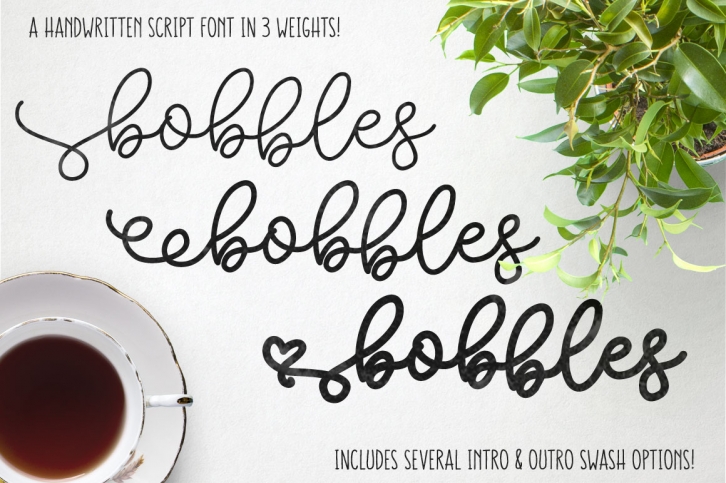
Bobbles is a trendy and unique font with an authentic style. It was designed by Missy Meyer Fonts and it's a great choice for creative people who need such a font. It was released on September 27, 2016 and the file size is 5.12 MB. Bobbles will add an organic vibe to any design idea!